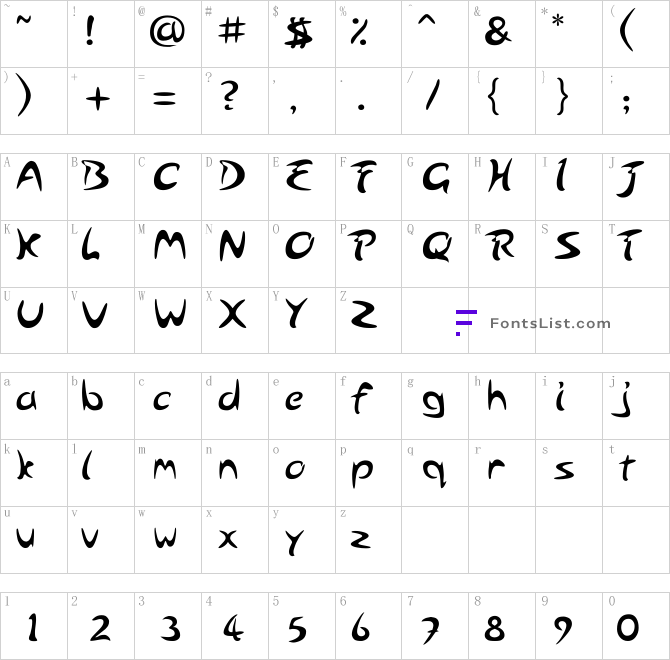
- Font Name:Arabolical
Arabolical.ttf is a very beautiful artistic font, Arabolical.ttf is widely used in the design and printing of various books and pictures,Arabolical.ttf has a strong visual impact,Arabolical.ttf is a commonly used font in newspapers, magazines and books, and is used in posters, e-commerce Poster design, store design, logo design, font design and other fields.Arabolical.